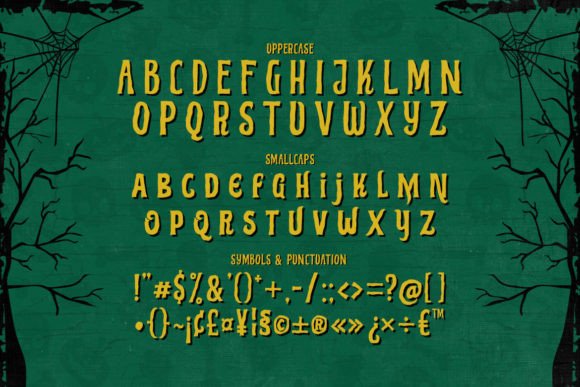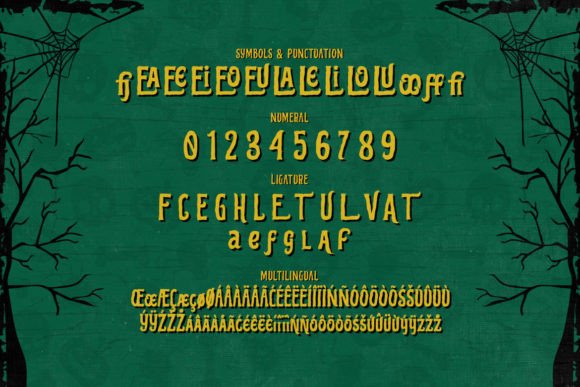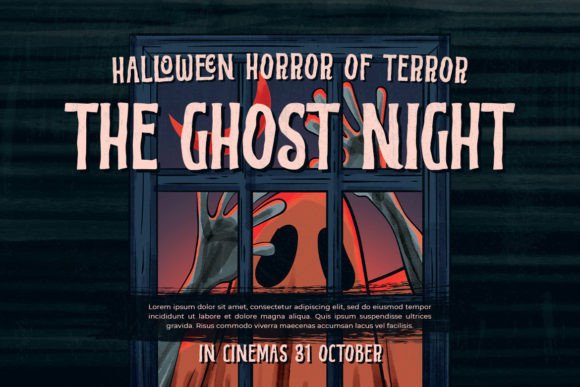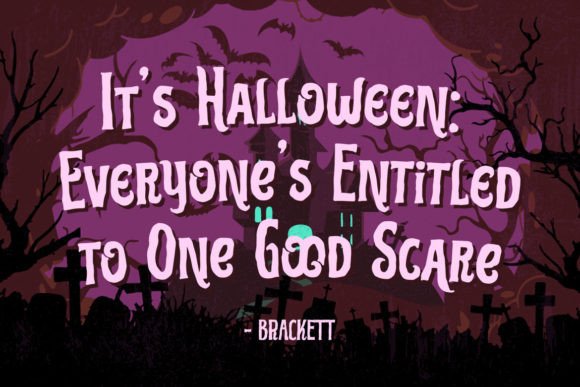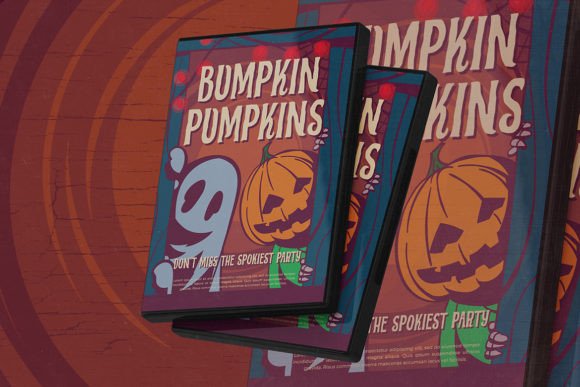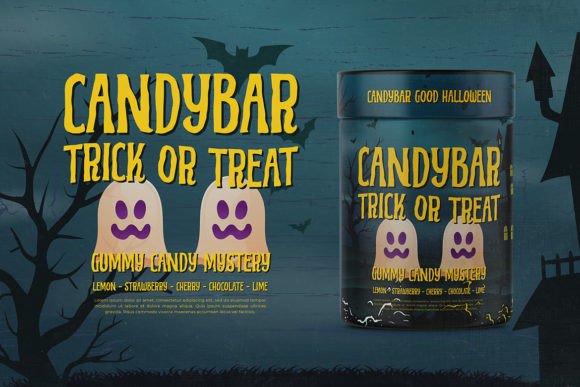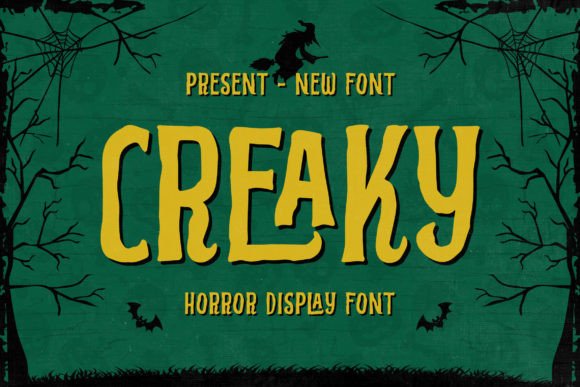
Creaky Font: The Spookiest Display Font for Your Scary Crafts and Horror Projects
Are you a designer, crafter, or horror movie enthusiast looking for a font that will add a touch of spookiness to your projects? Look no further than Creaky Font, a creepy display font that’s perfect for creating scary crafts, horror movie posters, t-shirts, and more. In this article, we’ll take a closer look at Creaky Font, its features, and how you can use it to give your projects a spectacular look.
What is Creaky Font?
Features of Creaky Font
- Creepy and Spooky Design: Creaky Font features irregular and jagged letterforms that are sure to add a creepy touch to your projects.
- Multilingual Support: The font supports multiple languages, making it perfect for projects that require text in different languages.
Uses of Creaky Font
Creaky Font is perfect for a variety of projects, including:
- Scary Crafts: Add a touch of spookiness to your Halloween crafts, such as decorations, cards, and gift tags.
- Horror Movie Posters: Create eye-catching horror movie posters that will grab the attention of horror movie fans.
- T-Shirts and Apparel: Design creepy t-shirts and apparel that will make you stand out from the crowd.
- Graphic Design Projects: Use Creaky Font in your graphic design projects, such as brochures, flyers, and posters, to add a touch of spookiness.
Tips for Using Creaky Font
Here are some tips for using Creaky Font in your projects:
- Use it Sparingly: Creaky Font is a bold font, so use it sparingly to avoid overwhelming your project.
- Pair it with Other Fonts: Pair Creaky Font with other fonts to create a unique and interesting look.
- Adjust the Font Size and Color: Adjust the font size and color to fit your project’s needs and to make it more readable.